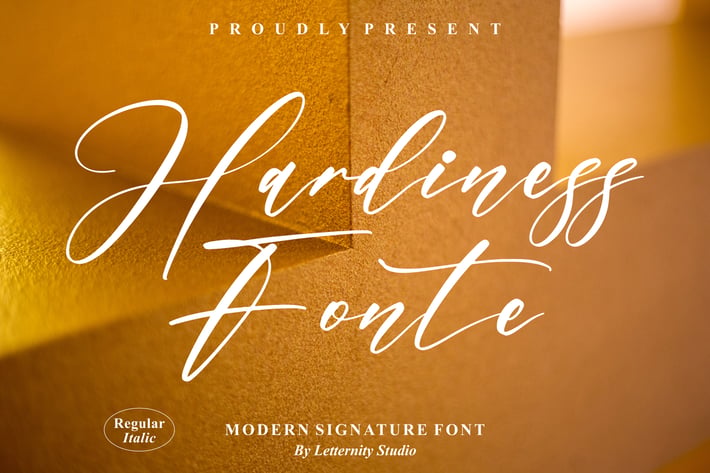
Hardiness Fonte Modern Signature Font
Hardiness Fonte is a sleek, modern signature script with flowing strokes and refined contrast. Designed for premium branding, it pairs effortless hand-drawn elegance with clean readability—perfect when you want a stylish, upscale look without losing clarity.
+ Regular & Italic styles
+ Long swashes and beautiful terminal strokes
+ OpenType ligatures & stylistic alternates
+ Contextual alternates for natural handwriting flow
+ Precise kerning and smooth outlines for print & web
+ Luxury branding & product packaging
+ Signature logos & personal watermarks
+ Wedding suites (invites, menus, place cards)
+ Social media graphics & Pinterest quotes
+ Fashion, beauty, and lifestyle editorials
+ Thank-you cards, gift tags, and stationery
Let your brand sign off with confidence—graceful, modern, unmistakably yours.